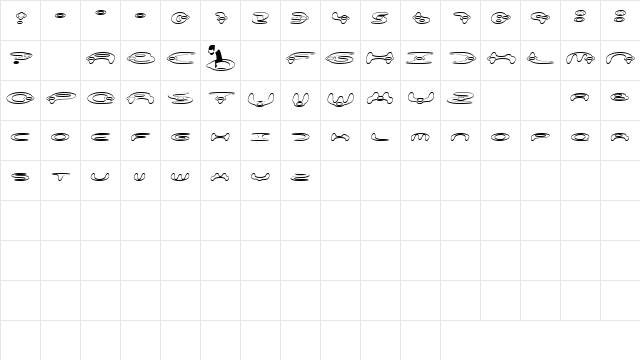
alienation Outline
| Style | Outline |
Design Context for alienation Typeface
alienation is built around its visual character rather than neutral utility — its distinctive forms are designed to make an impression at display sizes.
Font Pairing: Pair with a clean neutral sans-serif for body copy to let alienation's character lead without overwhelming the composition.
Pro Tip: Treat alienation as the centrepiece of your typographic hierarchy. One strong heading set in a decorative face can carry an entire layout.